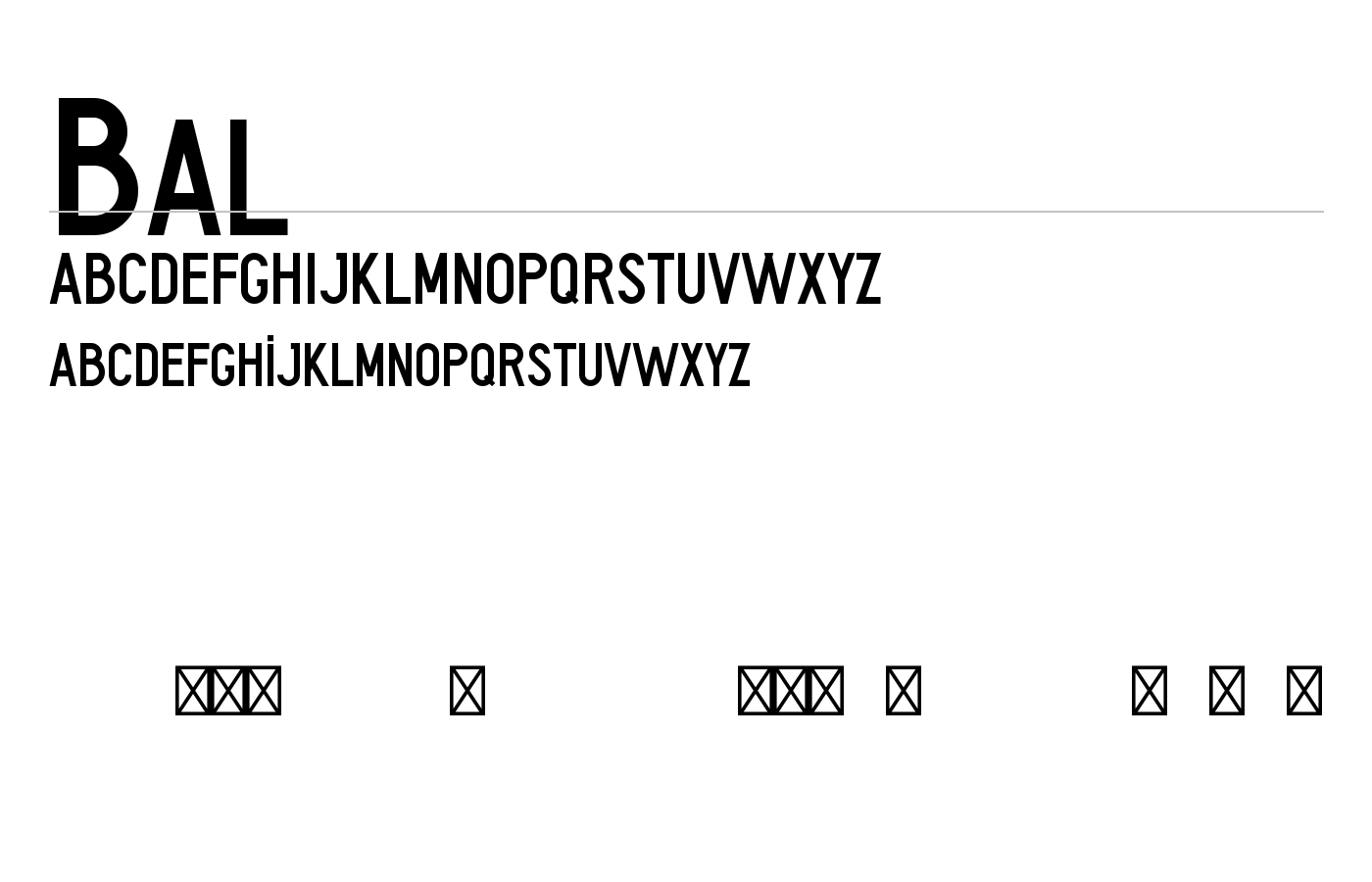
Bal Font is a tall, condensed sans serif typeface with a clean, modern feel. Its uniform stroke weight and narrow letterforms give it a sleek and professional appearance, ideal for striking headlines and contemporary branding. This font works well in designs that require a strong vertical presence and clear readability, especially in editorial, advertising, and web contexts.
Bal Font
About Bal Font
| Font family | Bal Font |
| Designer | Caglayan Zorlu |